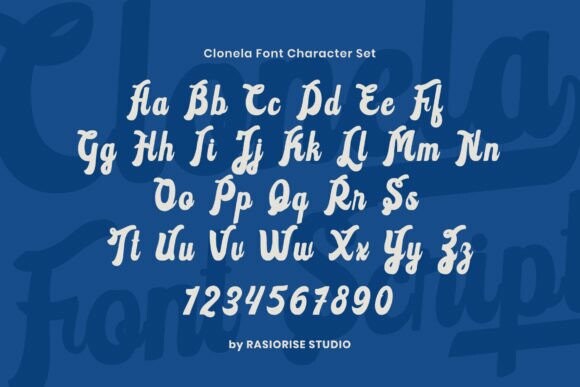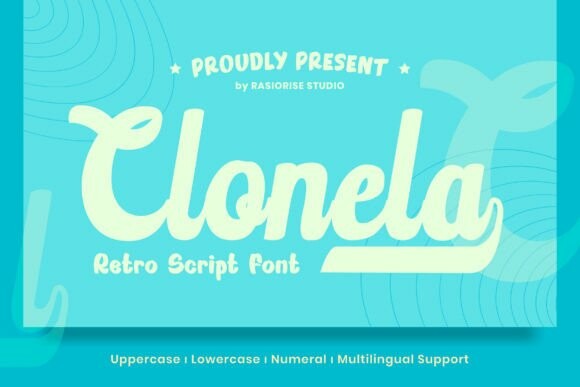
Clonela Font
Designer: Rasiorise Studio
Clonela Font is a retro script font. Perfect for designing elegant and romantic wedding invitations, RSVP cards, and thank-you notes.